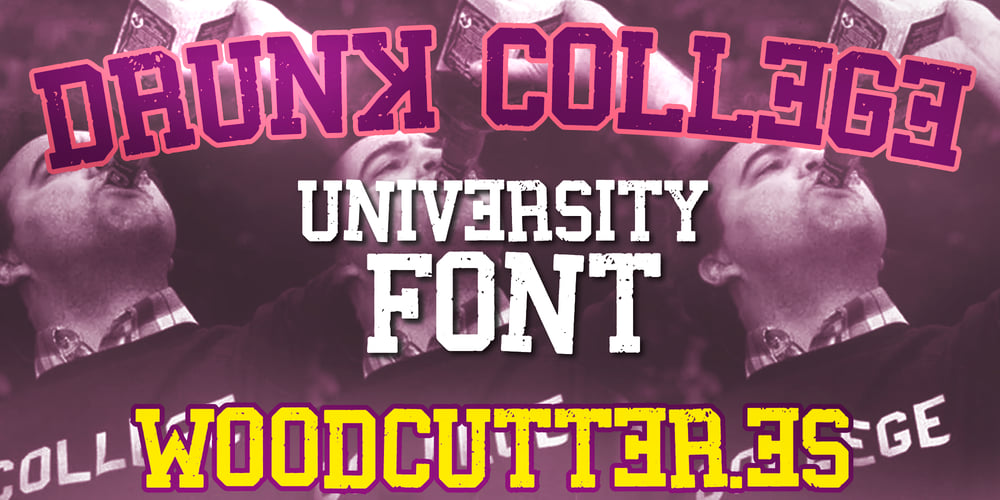
Drunk College Font Family was designed by Jordi Manero and published by Woodcutter. Drunk College contains 1 styles and family package options. “Drunk College” is an uppercase font with a college style that stands out for its chaotic and disordered appearance. The letters, while maintaining the classic university structure, show visible wear and irregularities that give them a rebellious and unbalanced touch. Some of its characters are inverted or out of place, further emphasizing the sense of visual chaos. This design is perfect for graphic projects looking to break away from the rigidity of traditional academic style, adding a casual and informal vibe, ideal for posters, t-shirts, or any proposal aiming to stand out for its irreverence.